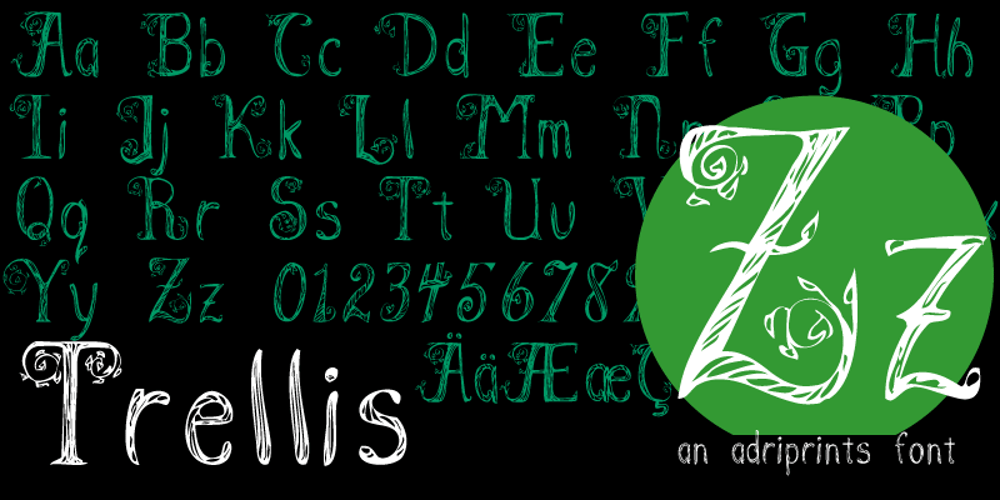
Trellis Font Family was designed by Adriana E. Hernandez and published by Adriprints. Trellis contains 2 styles and family package options. The Trellis font family was an effort to combine my love for Art Nouveau and storybook lettering. The capital letters are intricately illustrated and fully appreciated when magnified. Trellis is a font family decidedly decorative and ready for greeting cards and holiday cheer. I was inspired by Storybook caps for the capital letters, and wanted to combine it with some lettering from early 20th century posters. What are its main characteristics and features? Leaves intertwined and growing out of the ends of the capital letters. Although it’s highly decorative, it remains legible. Usage recommendations – Holiday Greetings, scrapbooking, personal seals since the capitals are quite attractive.